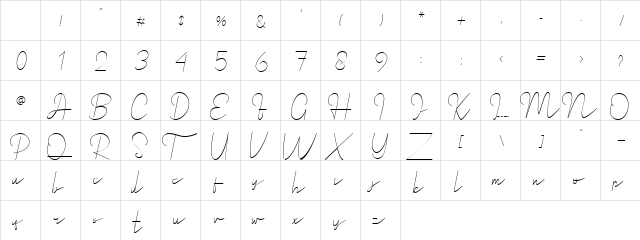
Complete Royal Haster Demo line Regular glyph index. Displaying only characters natively supported by Royal Haster Demo line Regular font.
Royal Haster Demo line is a composed and adaptable typeface that performs quietly and consistently across a wide range of design contexts.